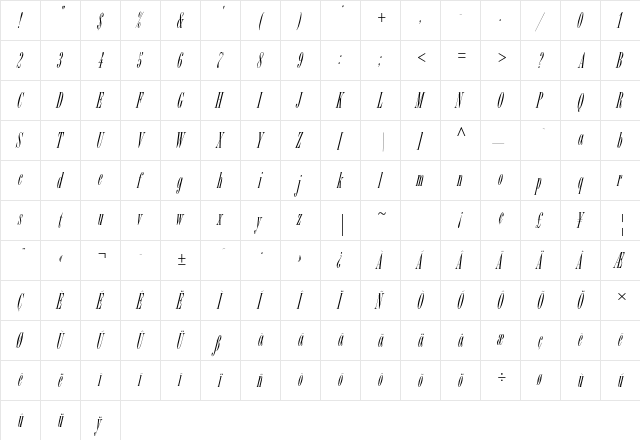
Bordeaux Roman Std Italic
| Designer | David Quay |
Design Context for Bordeaux Roman Std Typeface
Bordeaux Roman Std is a composed and adaptable typeface that performs quietly and consistently across a wide range of design contexts. Its italic angle brings a sense of urgency and motion to the letterforms.
Pro Tip: Try Bordeaux Roman Std for annotation and caption copy alongside an upright companion — the contrast in angle creates a dynamic but ordered typographic system.